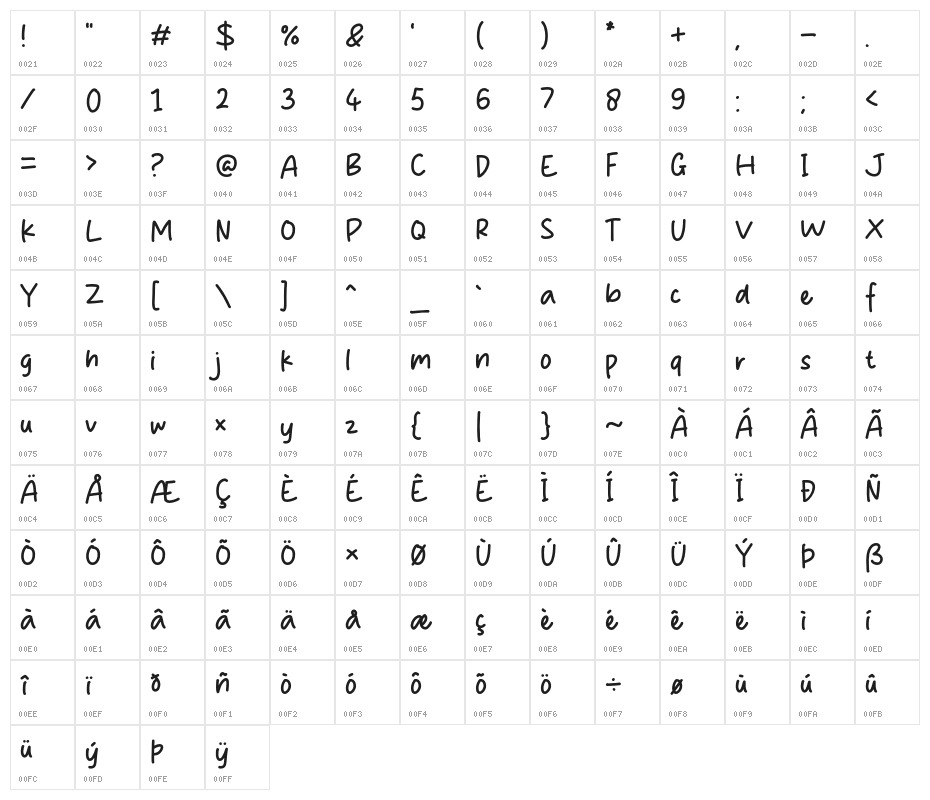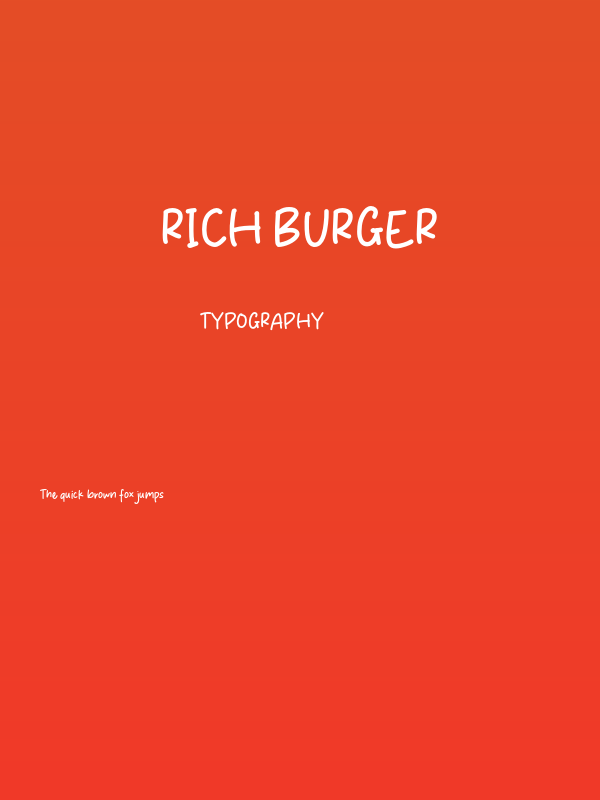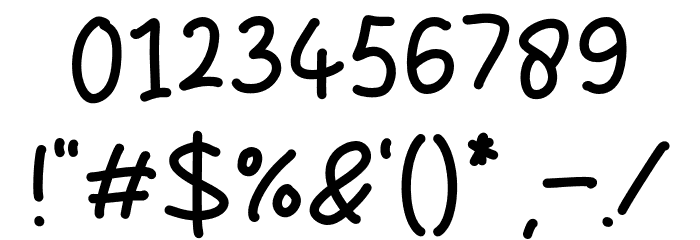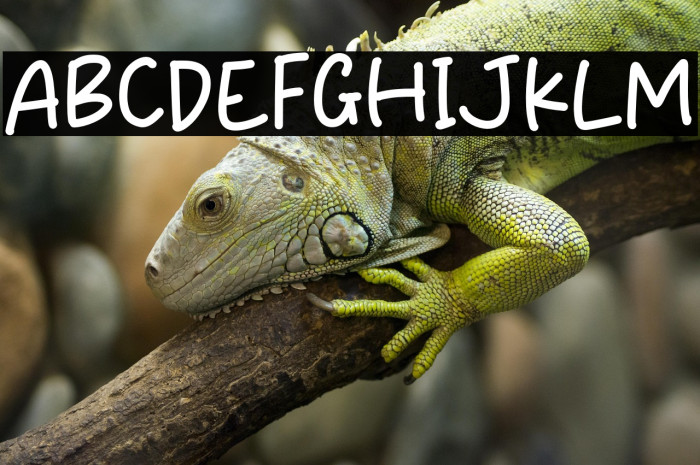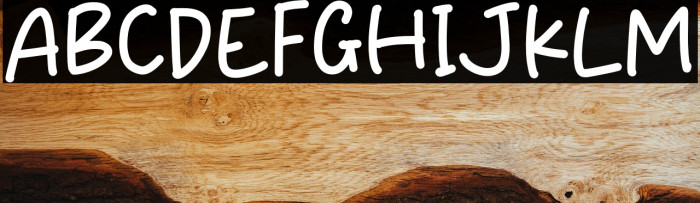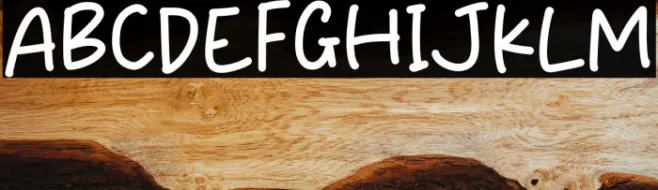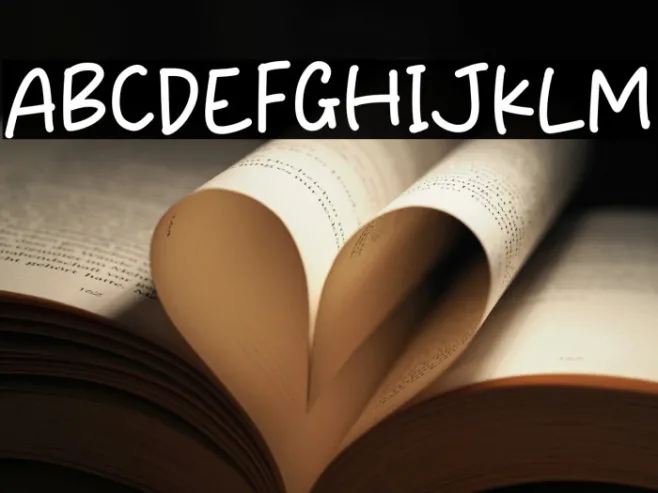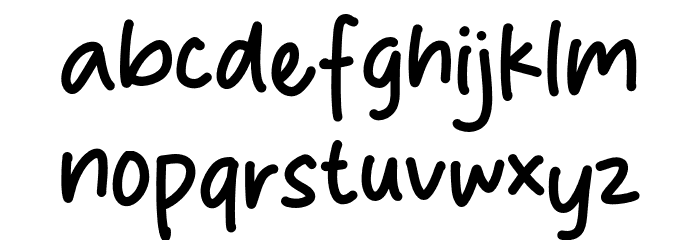
Rich Burger Font
Rich Burger Description
This font exudes a playful and casual handwritten style, characterized by its smooth, rounded edges and slightly irregular letterforms. The strokes are consistent in weight, providing a uniform appearance that enhances readability while maintaining a friendly and approachable vibe. The characters are well-spaced, ensuring clarity and legibility across various sizes. Its informal aesthetic makes it ideal for projects that require a personal touch, such as invitations, greeting cards, or playful branding materials. The font's simplicity and charm make it versatile for both digital and print media.
| Proposed Projects | Ideal for invitations, greeting cards, playful branding, and personal projects. |